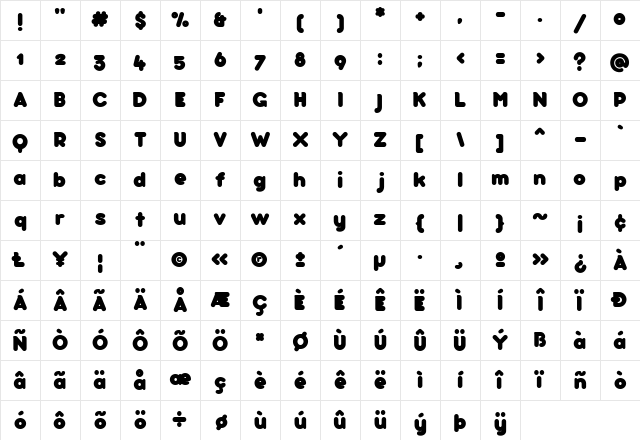
bubbleboddy Fat Free Font
bubbleboddy Fat
Style: Fat
Foundry: studio kmzero
Designer: Francesco Canovaro
Design Context for bubbleboddy
bubbleboddy has an approachable, lighthearted character - its loose, expressive forms are well-suited to children's content, casual branding, and fun-first design.
Font Pairing: Pairs well with a rounded or humanist sans for body copy, maintaining the friendly tone without relying on bubbleboddy to carry extended reading.
Pro Tip: Use bubbleboddy at larger display sizes where its expressive character can land. Pair with a clean, simple sans for body copy to maintain readability.